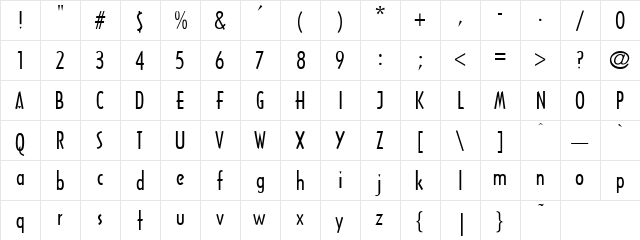
Arcitectura Regular
Design Context for Arcitectura Typeface
Arcitectura offers clean, dependable letterforms without strong stylistic allegiance, making it a practical choice for designers who need flexibility.
Pro Tip: Pair Arcitectura with a font of contrasting weight or personality to build a more expressive typographic hierarchy.